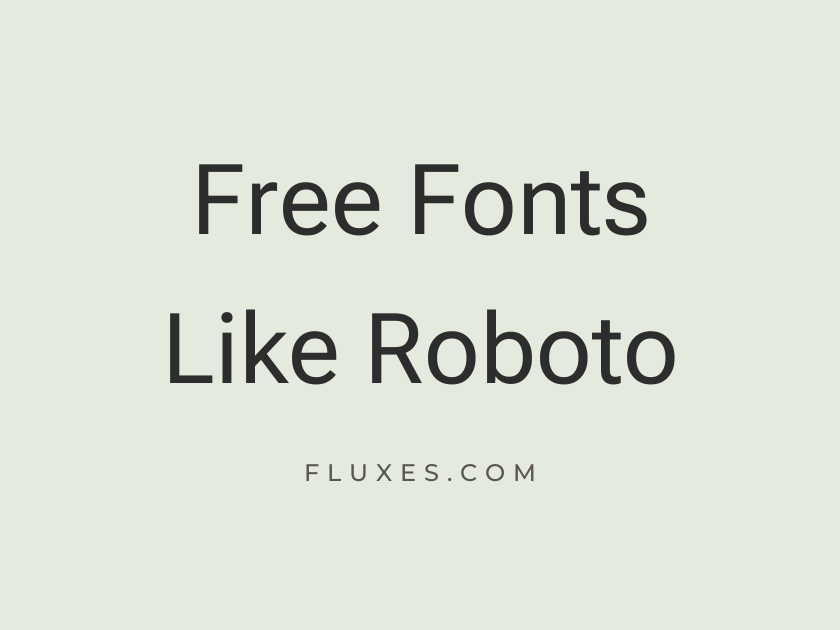
14 Best Free Fonts Similar to Roboto
Roboto has become the default voice of the modern web, the typeface baked into Android, Google’s Material Design, and countless dashboards and apps. Its blend of mechanical skeleton and humanist curves makes it easy to read at small sizes and comfortable across long stretches of body copy, which is exactly why so many designers go looking for free fonts similar to Roboto when a project needs that same clean, neutral, screen-ready feel without licensing a paid alternative. Whether you are hunting for a genuine Roboto alternative on Google Fonts, a variable font with more range, or simply a UI typeface that pairs well with it, the options below cover a wide spectrum of grotesque and humanist sans serifs built for interfaces, products, and editorial work alike.
1. Roboto Flex
Interfaces feel calmer with a flexible grotesque
Roboto Flex
The variable sibling of the original, Roboto Flex opens up axes for width, weight, optical size, and even grade, letting one file do the work of a dozen static styles. It is the obvious first stop for anyone who loves Roboto’s proportions but wants finer control over how text behaves across breakpoints and screen sizes.
2. Inter
Designed for screens, dashboards, and dense UI
Inter was built from the ground up for user interfaces, and it shows in the tall x-height, tight spacing, and near-obsessive attention to legibility at tiny sizes. It has become something of a default in product design circles, so reaching for it feels less like copying Roboto and more like joining the same conversation about what screen typography should do.
3. Noto Sans
Consistent typography across every language
Noto Sans shares Roboto’s engineering DNA, since both come out of Google’s type efforts, but Noto’s real superpower is its enormous multilingual reach. If a project needs Latin, Cyrillic, Greek, and beyond to look like one coherent family, this is the safer, more complete choice.
4. Work Sans
Built for text-heavy layouts and long articles
Work Sans leans slightly warmer and more optimized for text at medium sizes than Roboto does, with a structure inspired by early grotesques from the 1950s. It reads beautifully in paragraphs and headlines alike, making it a strong pick when a site needs personality without sacrificing the neutral, workhorse quality that made Roboto popular in the first place.
5. Open Sans
Friendly, open shapes for everyday reading
Few free fonts have logged more hours on the open web than Open Sans, and it earns that ubiquity with generous apertures and an easy, unfussy rhythm. It sits a touch rounder and friendlier than Roboto, which makes it a good option when a brand wants something approachable rather than mechanical.
6. IBM Plex Sans
Corporate warmth for product and interface design
Plex carries a distinct engineering pedigree of its own, commissioned by IBM as a humanist counterpoint to typefaces like Helvetica. Its slightly quirky details, like the two-story lowercase g, give it more character than Roboto while keeping the same steady, professional footing suited to software and technical documentation.
7. Public Sans
Clear, neutral text for government and civic sites
Public Sans was commissioned by the United States government to serve as an open, accessible default for federal websites, so clarity and restraint are its entire reason for existing. It is a smart substitute wherever Roboto’s neutrality is the goal but a more consciously accessibility-driven pedigree is needed.
8. Manrope
Modern geometry for apps and landing pages
Manrope trades some of Roboto’s grotesque rigidity for rounder, more geometric letterforms, giving headlines a slightly friendlier, more contemporary edge. It pairs nicely with a more traditional grotesque body font, so consider it for display text while something plainer handles the paragraphs.
9. Barlow
Fast, technical, and inspired by California signage
Drawing inspiration from the lettering on California license plates and highway signs, Barlow has a slightly condensed, engineered feel that fits dashboards, automotive brands, and sports apps. It shares Roboto’s low-key confidence but adds a touch of athletic energy.
10. Karla
Compact and tidy for compact interfaces
Karla is a little quirkier than Roboto up close, with subtle ink traps and rounded terminals that soften its grotesque bones. At body text sizes it stays crisp and unobtrusive, but it can look slightly loose in display sizes, so it earns its keep mostly in UI copy and shorter passages.
11. Rubik
Rounded corners for approachable digital products
Rubik’s rounded terminals and slightly geometric construction make it feel warmer and more casual than Roboto right out of the box. It works well for consumer apps and marketing sites that want a friendly, modern voice rather than a strictly neutral one.
12. Archivo
Versatile grotesque for headlines and body text
Archivo covers an unusually wide range, from a fairly plain grotesque body style to expanded and narrow variants suited to bold headlines. That range makes it a flexible one-family solution for teams who want Roboto-like neutrality but need more typographic variety within a single system.
For pairing, look for a font with slightly more character than Roboto, like Manrope or Rubik, to use in headlines while a plainer grotesque handles body copy.
Always check that the weights and variable axes you need are actually available before committing a whole design system to one family.
Any of these free fonts can stand in for Roboto without asking users to sacrifice legibility or familiarity. The right pick usually comes down to how much personality you want layered on top of that same dependable, screen-ready foundation.